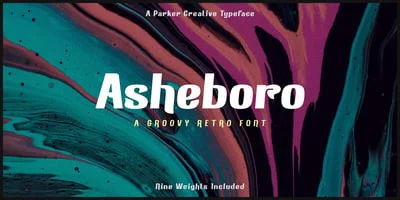
Asheboro Font
Usage Examples: Asheboro Font is perfect for retro branding, comic book lettering, themed event posters, and vibrant website designs.
Why It’s Exciting: Its groovy, retro style blends 1960s psychedelic vibes with modern geometric sans-serif flair, creating a bold, nostalgic aesthetic.
Font Families: Asheboro Font includes nine weights: Thin, ExtraLight, Light, Regular, Medium, SemiBold, Bold, ExtraBold, and Black, offering ultimate styling versatility.
Discover the vibrant charm of Asheboro Font! Designed by Alan Parker of Parker Creative, this sans-serif typeface captures the essence of 1960s and 70s groovy lettering while maintaining clean, modern lines. Ideal for special branding projects, graphic novels, or eye-catching digital content, Asheboro Font includes a robust set of multilingual characters and a meticulously balanced number set. Download Asheboro Font now to test its retro-modern appeal, but secure a commercial license for professional use. With nine weight variants, from Thin to Black, this font adapts effortlessly to diverse design needs, ensuring readability and visual impact. Elevate your brand’s style with this dynamic, versatile typeface today